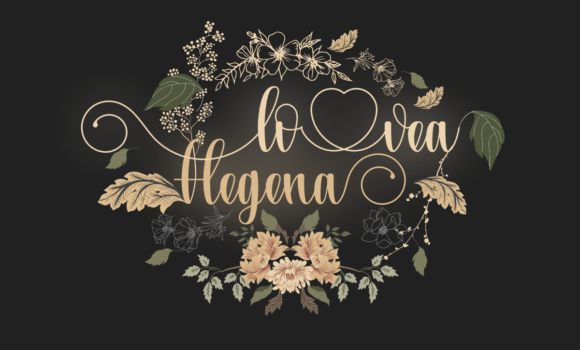
Lovea Hegena Font – Free Download Introduction to Lovea Hegena Font Lovea Hegena is an elegant and flowing handwritten font. 📸 Preview Gallery 6 images 📌 Product Name Lovea Hegena Font 👤 Author Prast Art 📂 Category Explore ⬇️ Download